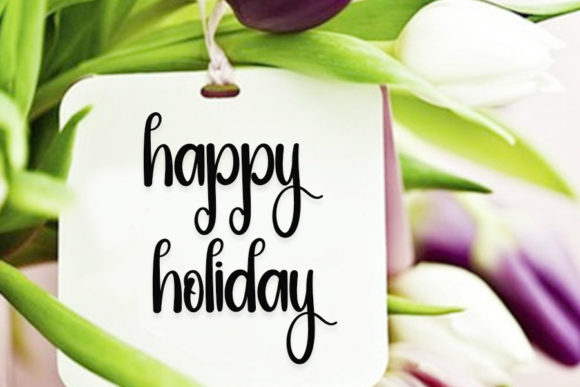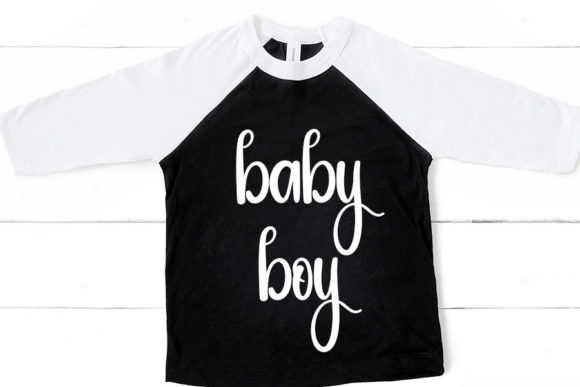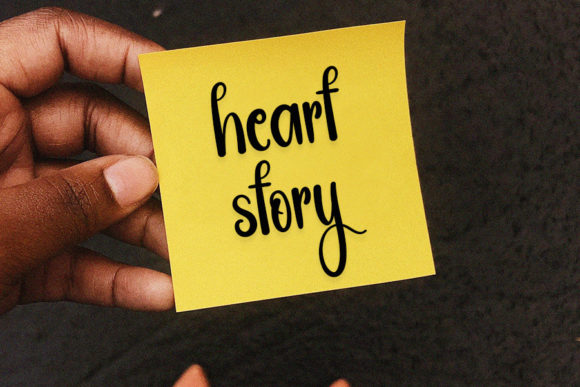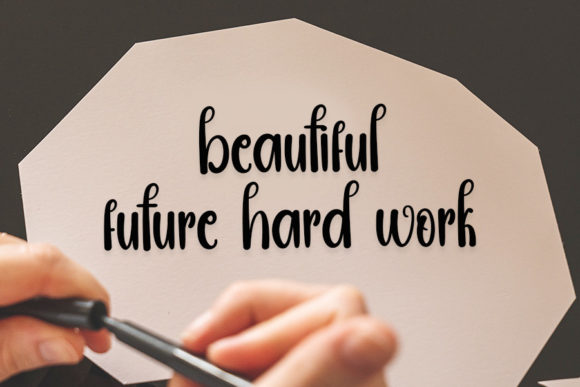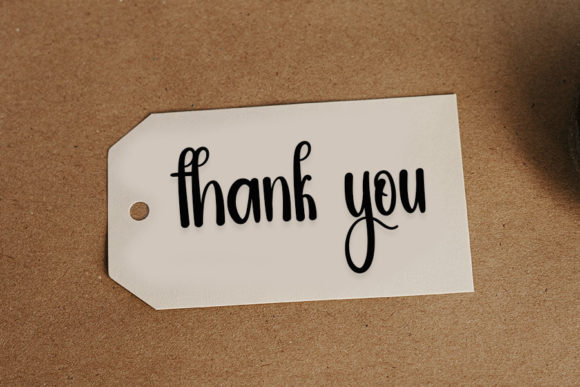
Olivia Font
Olivia Font: A Delicate Script for Romantic Designs
The Olivia font is a delightful handwritten typeface that captures the essence of sweetness and delicacy. Its charming character makes it perfect for designs that need a romantic and personal touch.
Elegance in Every Stroke
Olivia’s gentle curves and graceful strokes give each letter a refined look. This dainty appearance adds sophistication to any text, making it ideal for wedding invitations and love notes.
Warmth and Personal Connection
The font’s handwritten quality brings authenticity to designs. It’s perfect for heartfelt messages and thoughtful cards, adding a personal touch to your projects.
Versatility of Olivia Font
Olivia shines in various design contexts. From wedding stationery to social media graphics, it adds a romantic flourish to any project. Its blend of elegance and playfulness makes it a valuable design asset.
Creating Emotional Resonance
More than just a typeface, Olivia invites designers to infuse their work with sentiment. Its delicate nature creates a warm atmosphere, making projects resonate with authenticity and charm.
Olivia in Creative Projects
This font transforms ordinary text into extraordinary expressions of love. It’s a cherished tool for designers looking to add a touch of romance to their work.
Perfect for Special Occasions
Olivia is particularly well-suited for special event designs. Its elegant script enhances invitations, place cards, and other wedding-related materials.
Whether you’re crafting a personal note or designing a brand identity, Olivia offers the perfect balance of style and emotion. Its versatility across different mediums ensures that your message not only looks beautiful but also communicates effectively.